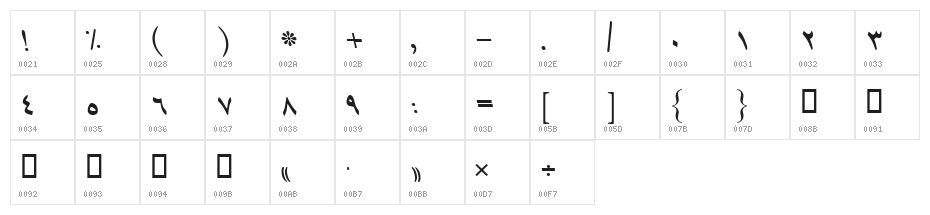
Tehraan Italic Font
Tehraan Italic Description
This font features a distinct italic style with a flowing and elegant design. The characters are slightly slanted, giving a sense of motion and sophistication. The strokes are smooth and consistent, with a moderate thickness that ensures readability while maintaining a stylish appearance. The numbers and special characters complement the alphabetic characters with similar slanted and fluid forms. This font is well-suited for projects that require a touch of elegance and modernity.
| Proposed Projects | Ideal for wedding invitations, elegant branding, fashion magazines, and artistic posters. |